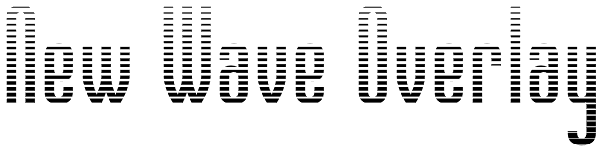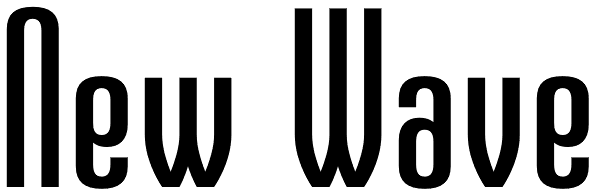
New Wave
NewWave is a condensed display font which can be used straight, or by engaging contextual alternates, can jump around randomly. There are three sets of alternates for all letters and numerals, and a randomise function which gives the text an...
New Wave Overlay